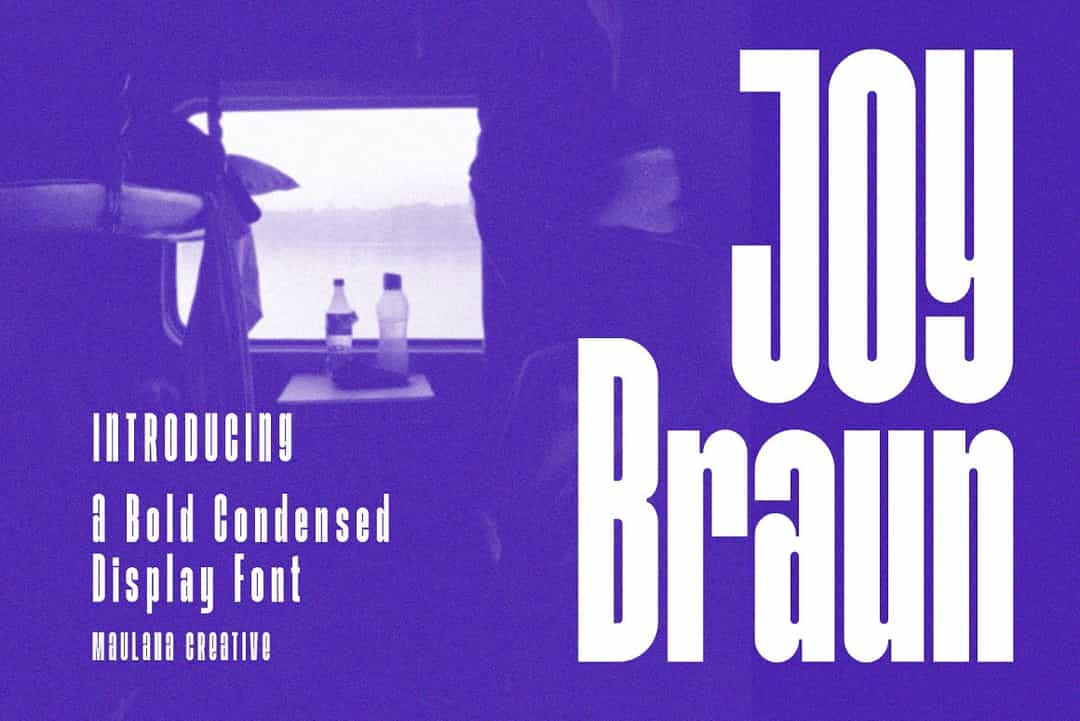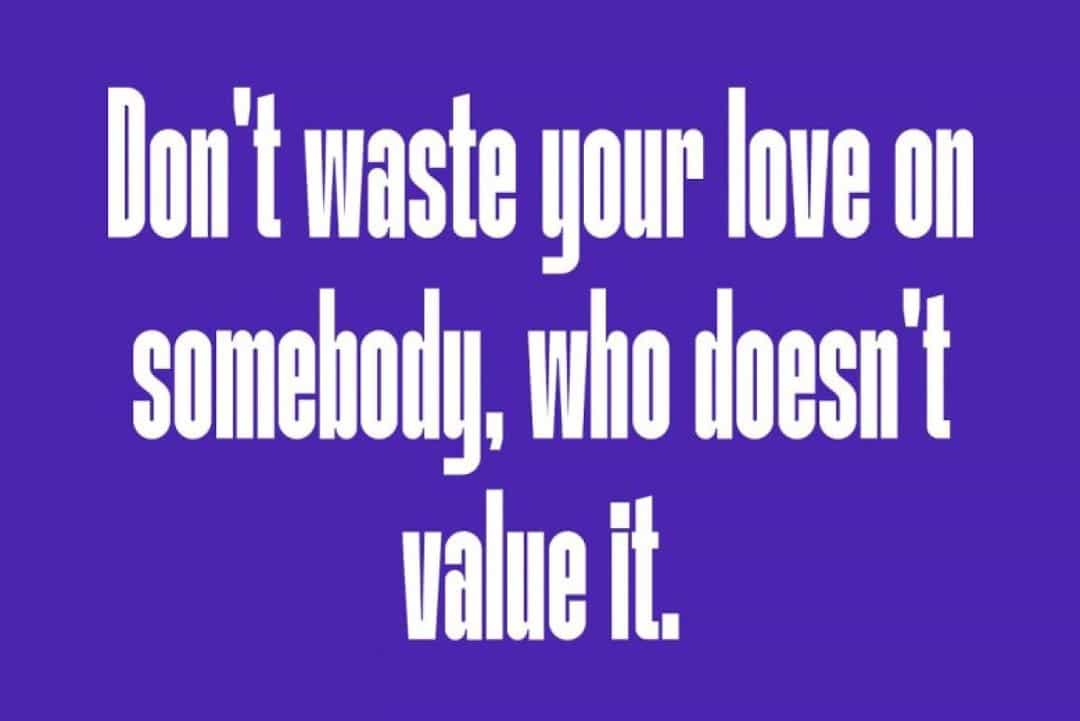
Joy Braun font is an impressive modern sans display font with lowercase characters that boast enjoyable lowercase characters combined with uppercase characters that possess some subtle ligatures to allow you to express your imagination through artwork. Joy Braun font supports over 100 languages!